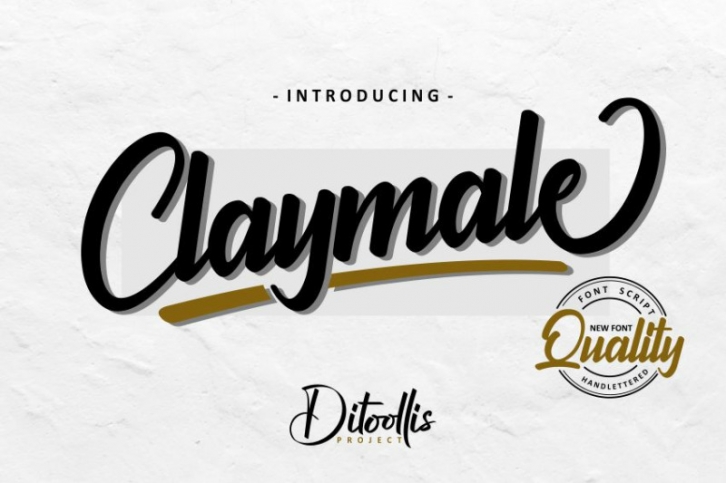
I have released my latest font.
Introducing "Claymale"
This font, an elegant, modern and cool font
font that is very suitable to use for your design.
This font is also complete
- Numeric
and there are also
- 7 Swash
- 118 Alternates
- 57 Ligatures
ok that's a brief explanation of the "Claymale" font